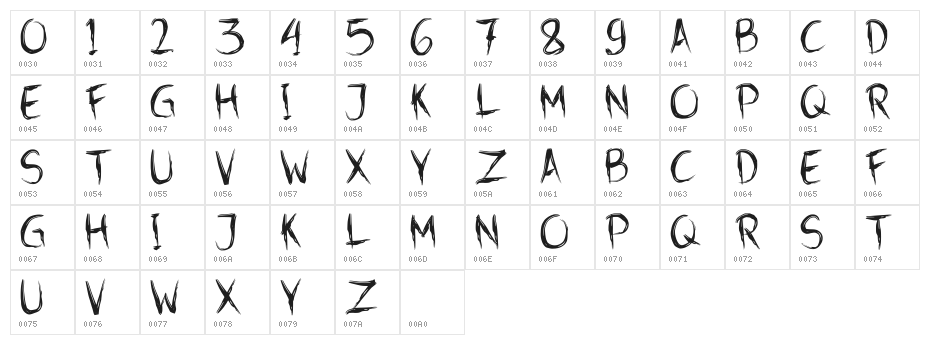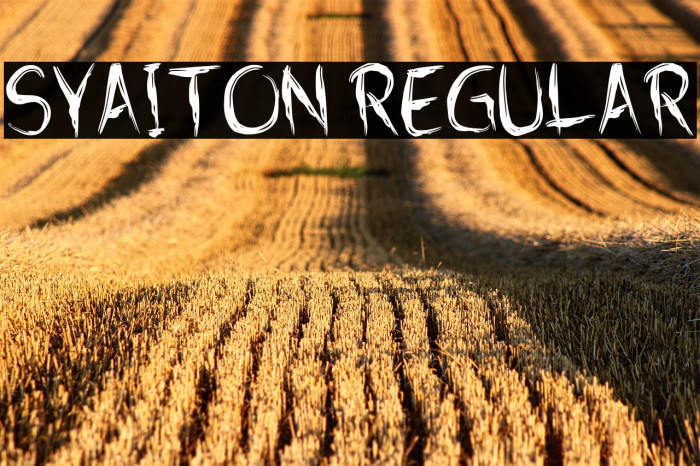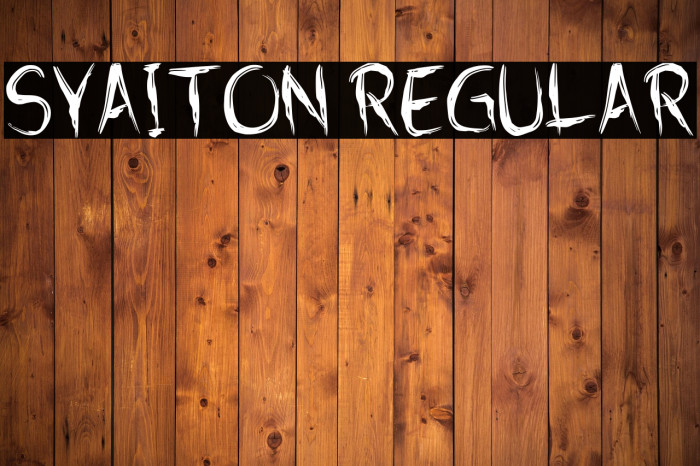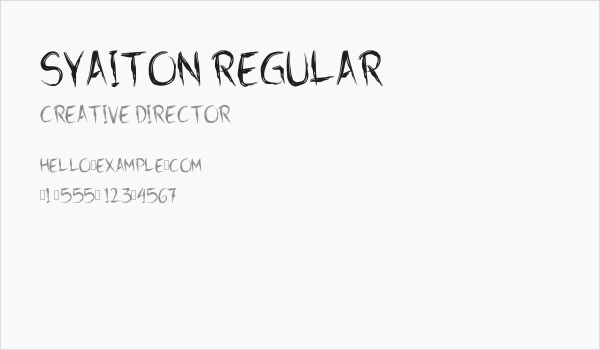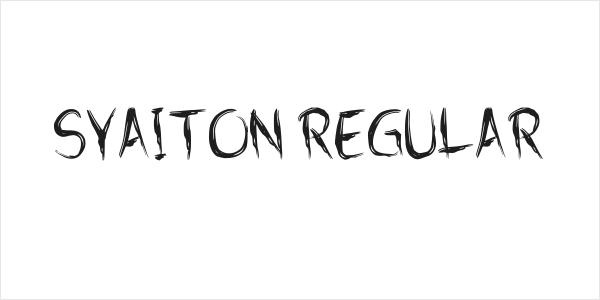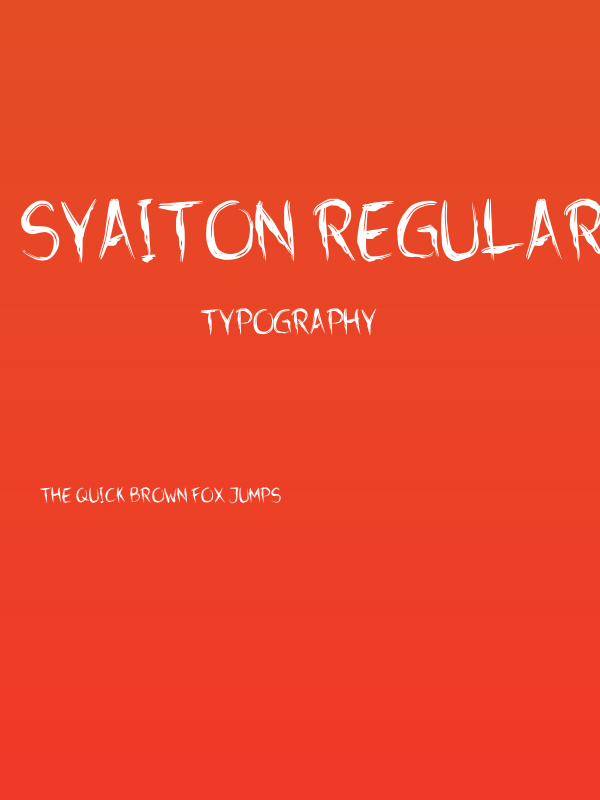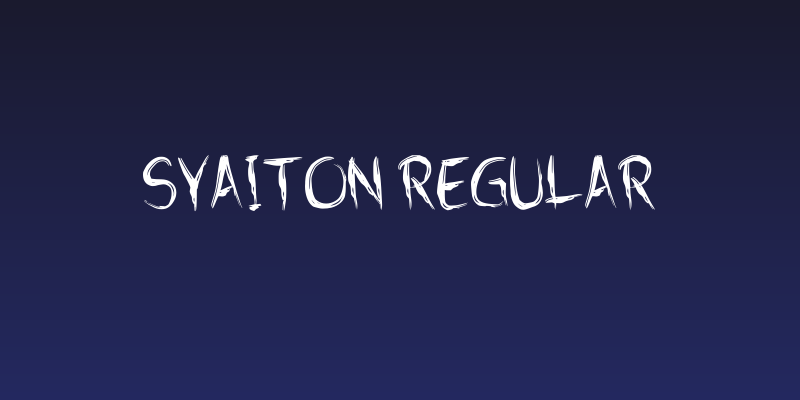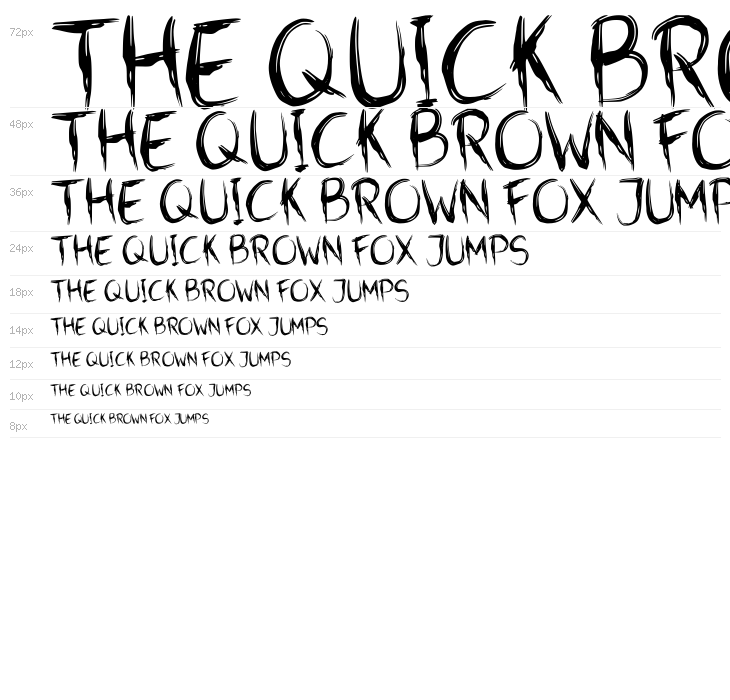
Syaiton Regular Font
Syaiton Regular Description
This font exudes a raw, edgy aesthetic with its sharp, brush-like strokes that give each character a sense of movement and intensity. The letters are irregular and dynamic, resembling hand-drawn calligraphy with a modern twist. The uppercase and lowercase letters maintain a consistent style, while the numerals and special characters add to the font's unique flair. The overall appearance is bold and striking, making it ideal for projects that require a dramatic and artistic touch.
Overall StyleModern, Artistic
Proposed ProjectsIdeal for album covers, posters, branding for edgy products, or any design needing a dramatic flair.